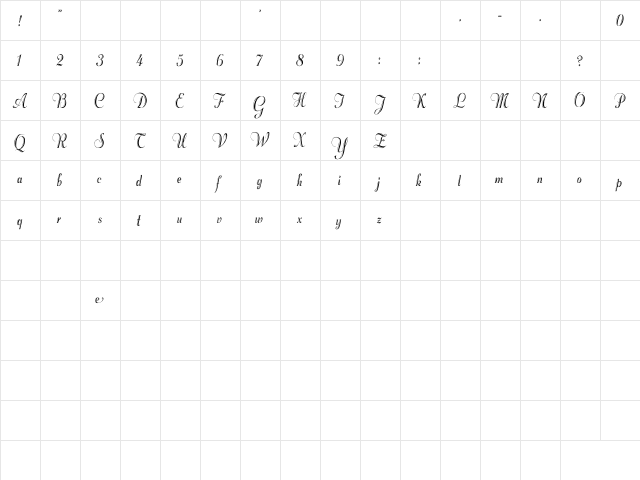
Rechtman Cn Plain
Design Context for Rechtman Cn Typeface
Rechtman Cn is a composed and adaptable typeface that performs quietly and consistently across a wide range of design contexts.